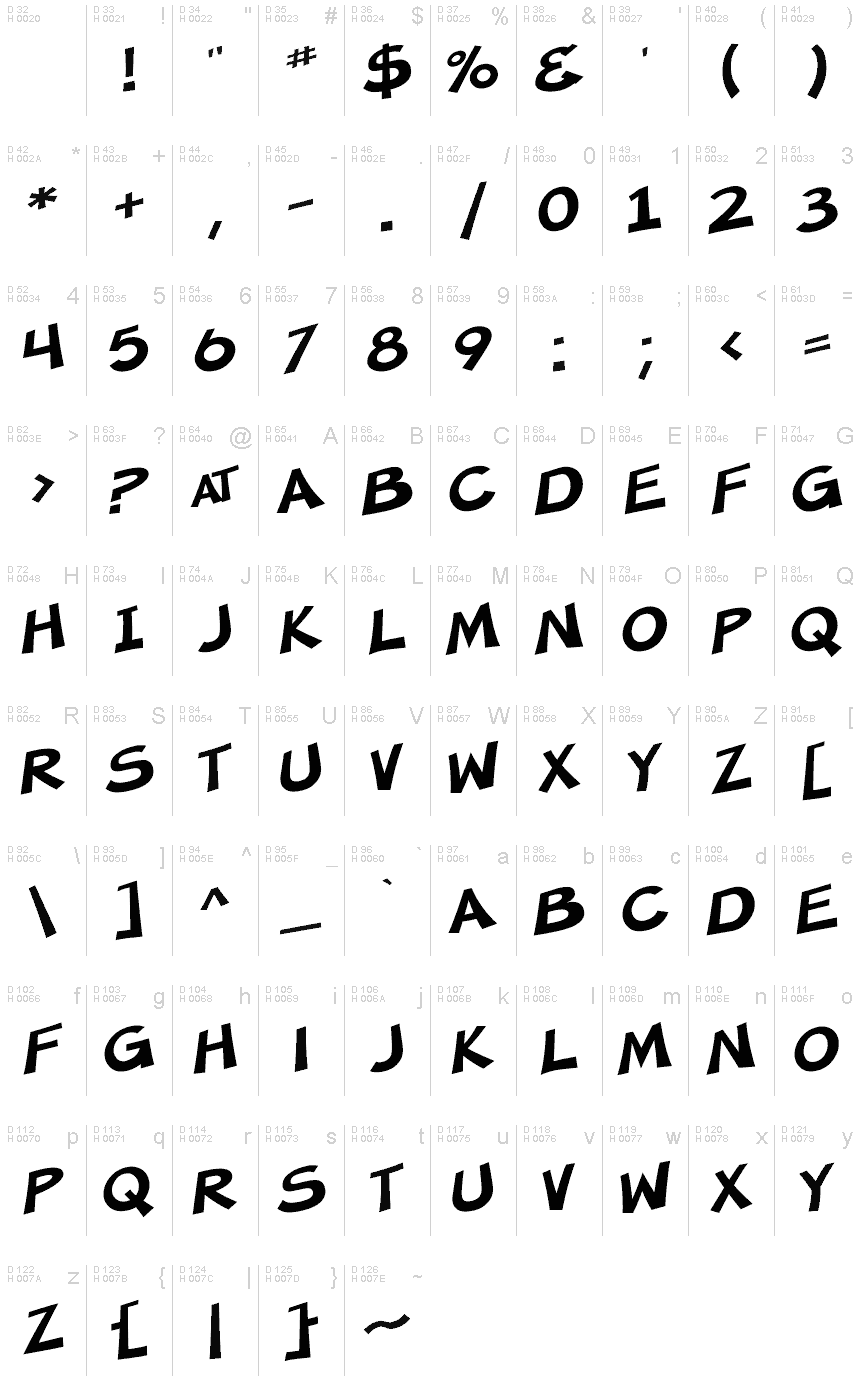
SF Minced Meat
SF Minced Meat, a playful and bold creation by ShyFonts Type Foundry, brings an air of whimsy and fun to the display font family. With its cartoon style and semi-bold weight, this font exudes a lively presence that instantly captures attention. The charming irregularities in its letterforms are reminiscent of classic comic strips and animated characters, making it an excellent choice for projects that require a touch of humor and personality.
Its aesthetic appeal lies in the balance between readability and distinctive style, ensuring that messages are not only seen but also felt with a sense of joy. Whether used for children's books, party invitations, or eye-catching logos, SF Minced Meat is versatile enough to inject energy into any creative endeavor while maintaining clarity.
Embrace a world where typefaces set the tone for storytelling; let SF Minced Meat be your guide to crafting visuals that pop with character and charm.